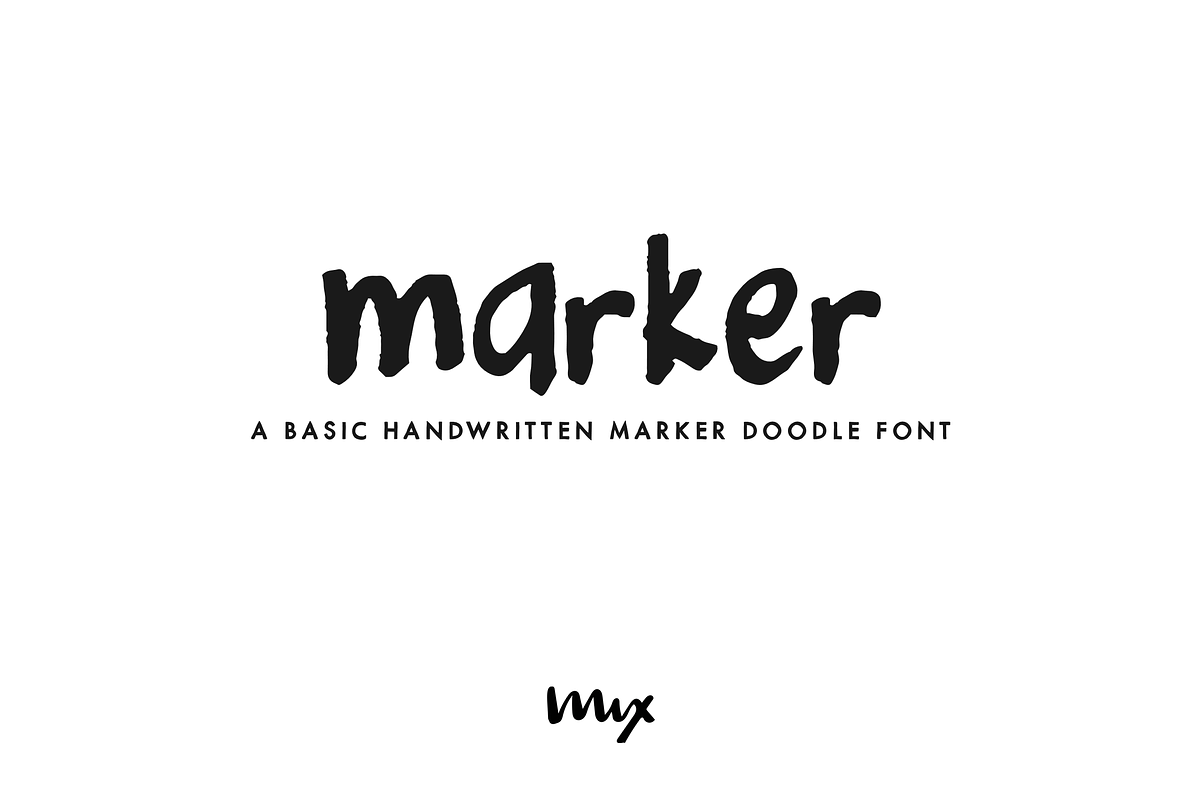
Marker — A Handwritten Doodle Font Free Download is a quirky and creative typeface that mimics the look of hand-drawn marker lettering with a fun doodle twist. Perfect for playful designs, this font is great for posters, classroom materials, social media graphics, sticker packs, and anything that needs a burst of personality and charm.
Its irregular lines and spontaneous style give it an authentic, casual feel—like it was sketched straight from a notebook. Whether you're working on a kids' project, a fun YouTube thumbnail, or crafty printables, Marker makes your text feel energetic and unique.